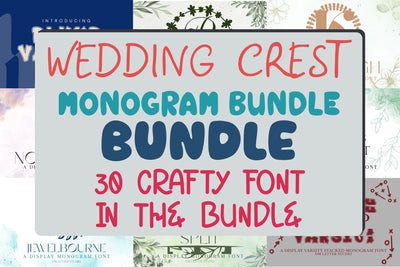
Wedding Crest Monogram Bundle + Plump Varsity Bonus
Wedding Crest Monogram Bundle + Plump Varsity Bonus is a premium collection built for elegant personalization and high-impact varsity designs. Inside, you’ll find a full lineup of crest-style monograms in regular + split versions, plus three bold Plump Varsity fonts as a bonus for sporty drops. Because you can switch from classic wedding crests to campus-style headlines in one bundle, it’s perfect for sellers who want variety without losing a consistent, professional look. Use it for wedding suites, boutique logos, keepsake gifts, wax seals, stationery, packaging, stickers, team merch, and school spirit promos. As a result, your shop can cover more niches and launch more listings faster.
Why This Bundle Sells
Fast Layouts With The Crest Monograms
Start with a crest initial as the hero element. After that, place a name or date in the split bar for instant personalization. Because crests look best with breathing room, keep your layout clean and add supporting text in a simple serif or neat sans. In addition, pair the monogram with wreath frames, oval borders, thin dividers, or minimal foliage to complete the set quickly. Finally, save palette pairs like champagne & charcoal, sage & ivory, navy & pearl, or cocoa & cream to keep your listings consistent.
Quick Varsity Layouts with The Bonus Fonts
Use Plump Varsity for strong collegiate headlines, then switch to Plump Varsity Stacked when you want instant depth. For initials and badges, use Plump Varsity Stacked Monogram. After that, add a year, team name, or location in a clean condensed font. Because varsity styles love structure, try arches, shields, and badge shapes for fast, merch-ready designs.
Creative Uses and Quick Wins
- Wedding invitations, menus, place cards, and table numbers
- Boutique logos, brand seals, and product badges
- Wax seals, ribbon tags, and keepsake boxes
- Labels, stickers, tissue wraps, and thank-you cards
- School spirit designs, team merch, and sports promos
- POD: tees, totes, mugs, caps, and gift tags
- Crest monograms in regular + split styles for quick personalization
- Curves tuned for foil, emboss, deboss, engraving, laser, vinyl, DTF, and sublimation
Design Tips for Best Results
Keep the personalization line short so the initial stays dominant. Also, increase tracking slightly on small labels to keep text clean. For a premium look, add a thin inner stroke or soft shadow behind crests on light backgrounds. When using Plump Varsity styles, keep headlines short and give them extra margin so the stacked depth reads well. Finally, export at 300 DPI for print and 2× size for web for smooth edges everywhere.